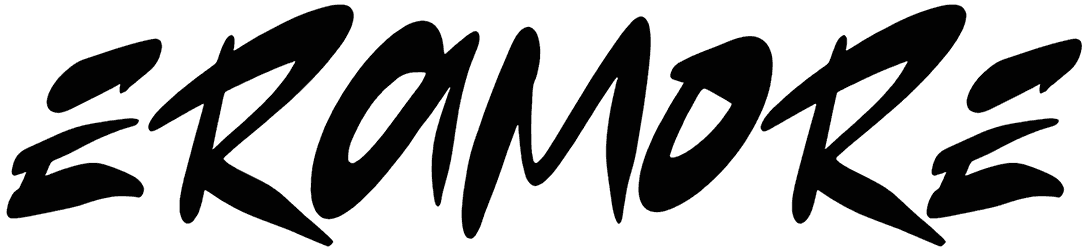
Brush King Font
Most brush fonts are perfect for casual and friendly situations. Now you can use Brush King and create a text-based design in style. The letters sound a little bit colorless on the external edges. Download it right now and remember that this one lacks numbers. For more of this category, dive deeper into our website.
Designed by: Subectype Orenari